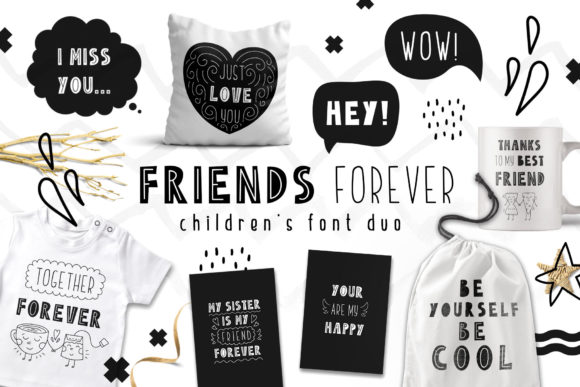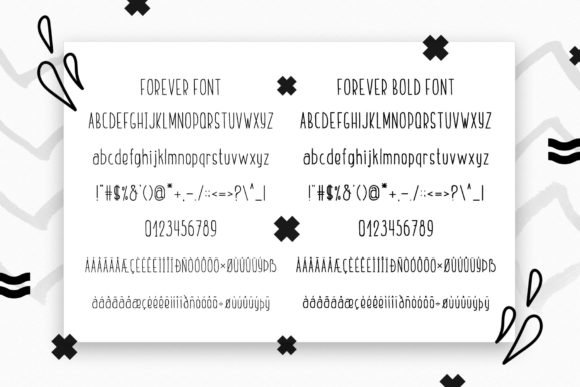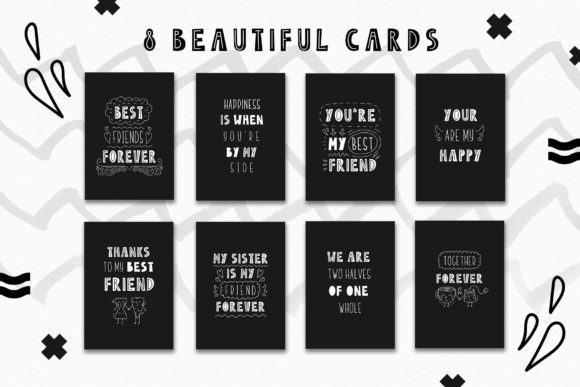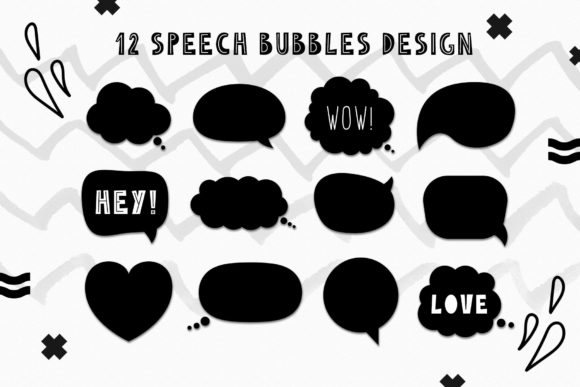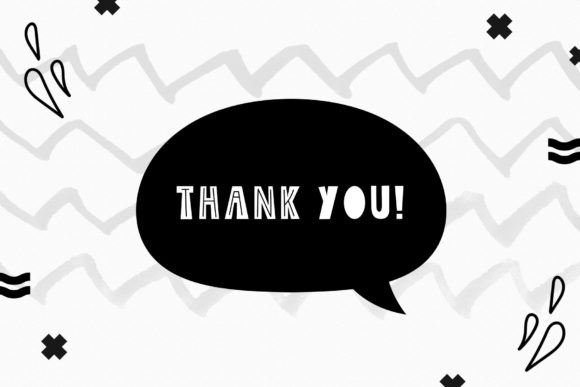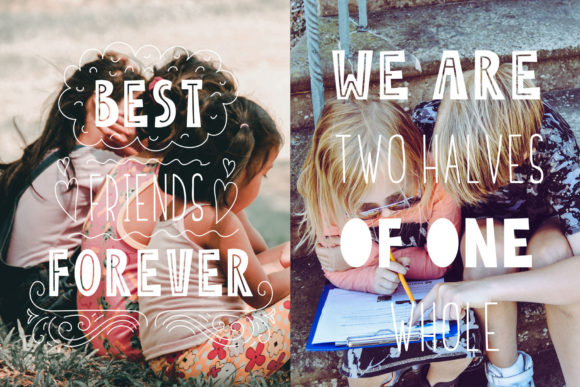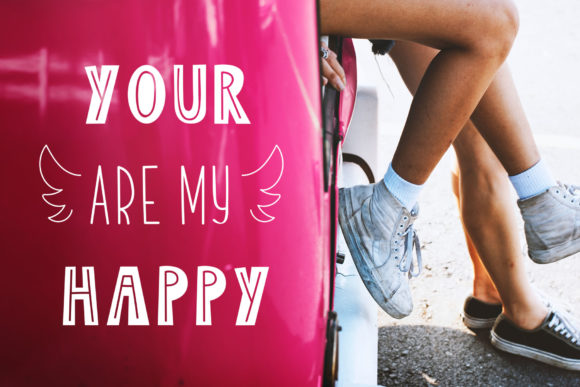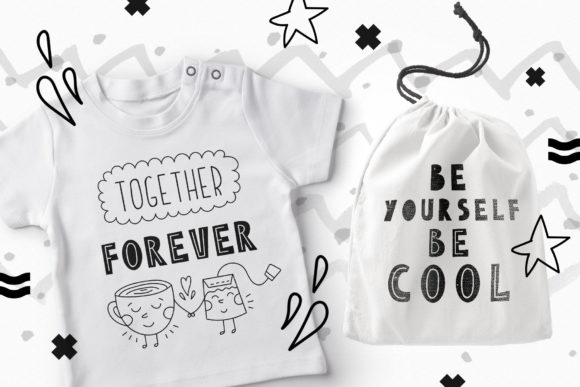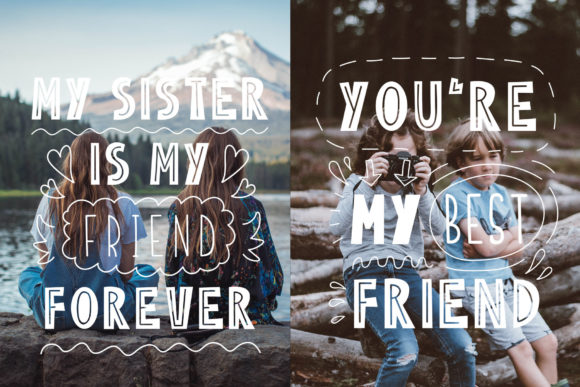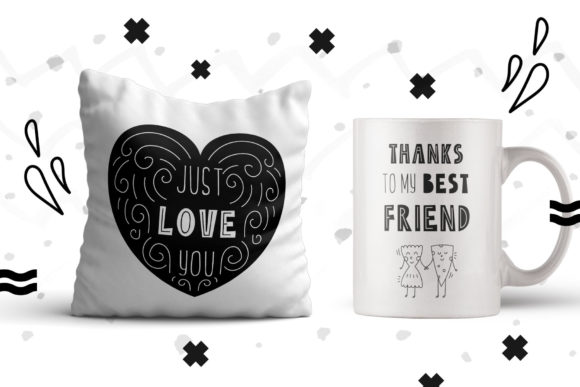
Friends Forever Duo Font
About Friends Forever Duo Font
These two cute fonts are made by hand and with great love! With the help of these fonts, you can make cards, prints on clothes, bright posters, calendars, brochures, maps, decorate the children’s room, create invitations, wrapping paper, icons, mugs and more! Just download them and create a variety of design options. They are perfect for Scandinavian style products!